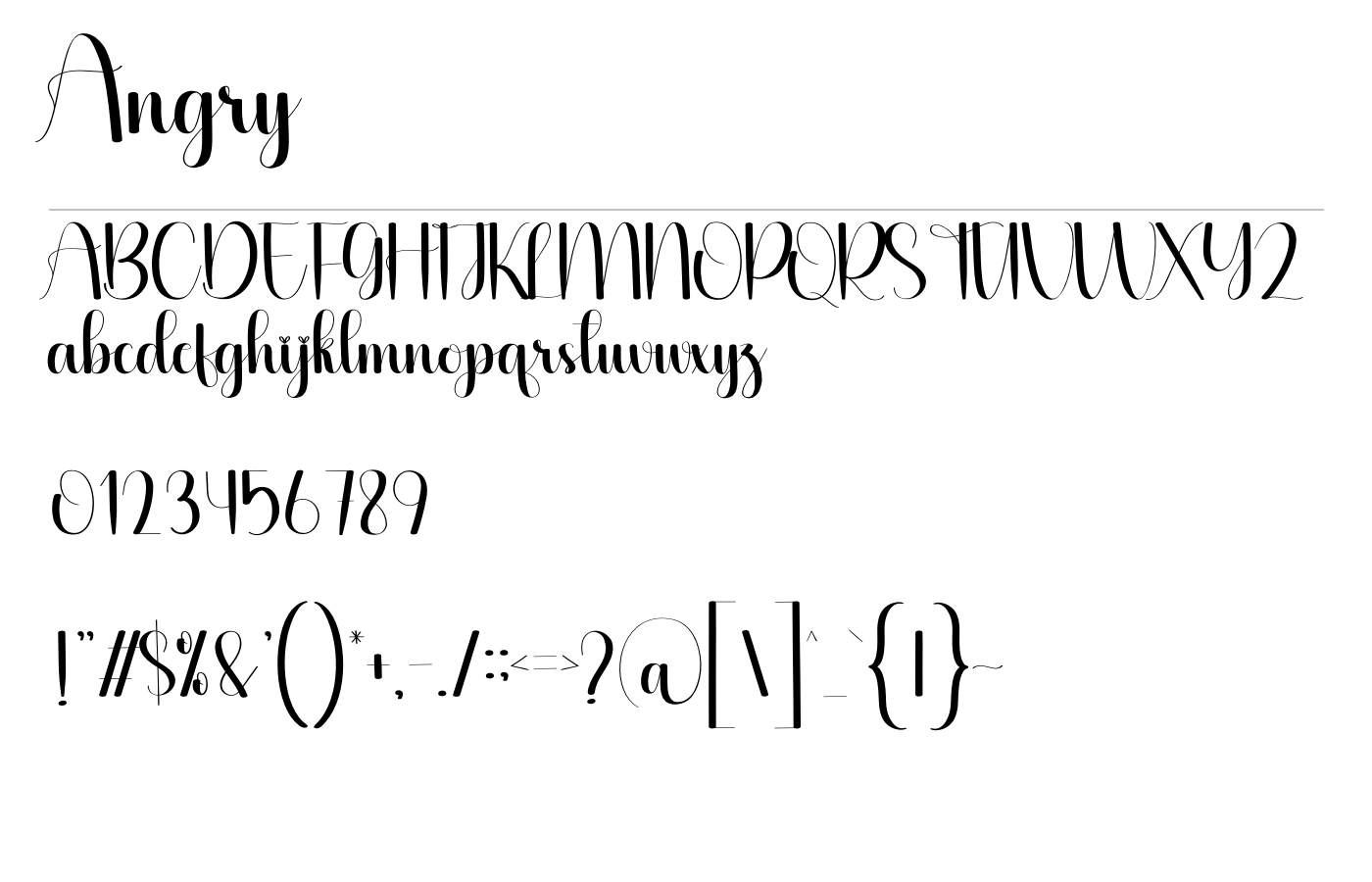
Angry Font is a lively and elegant script typeface featuring tall, slender letterforms with delicate flourishes and high contrast between thick and thin strokes. Its playful yet sophisticated style suits creative projects, invitations, and branding that want to convey charm and personality with a touch of refinement. This font works best in headlines and decorative uses where its unique flourishes and stylish curves can truly stand out.
Angry Font
About Angry Font